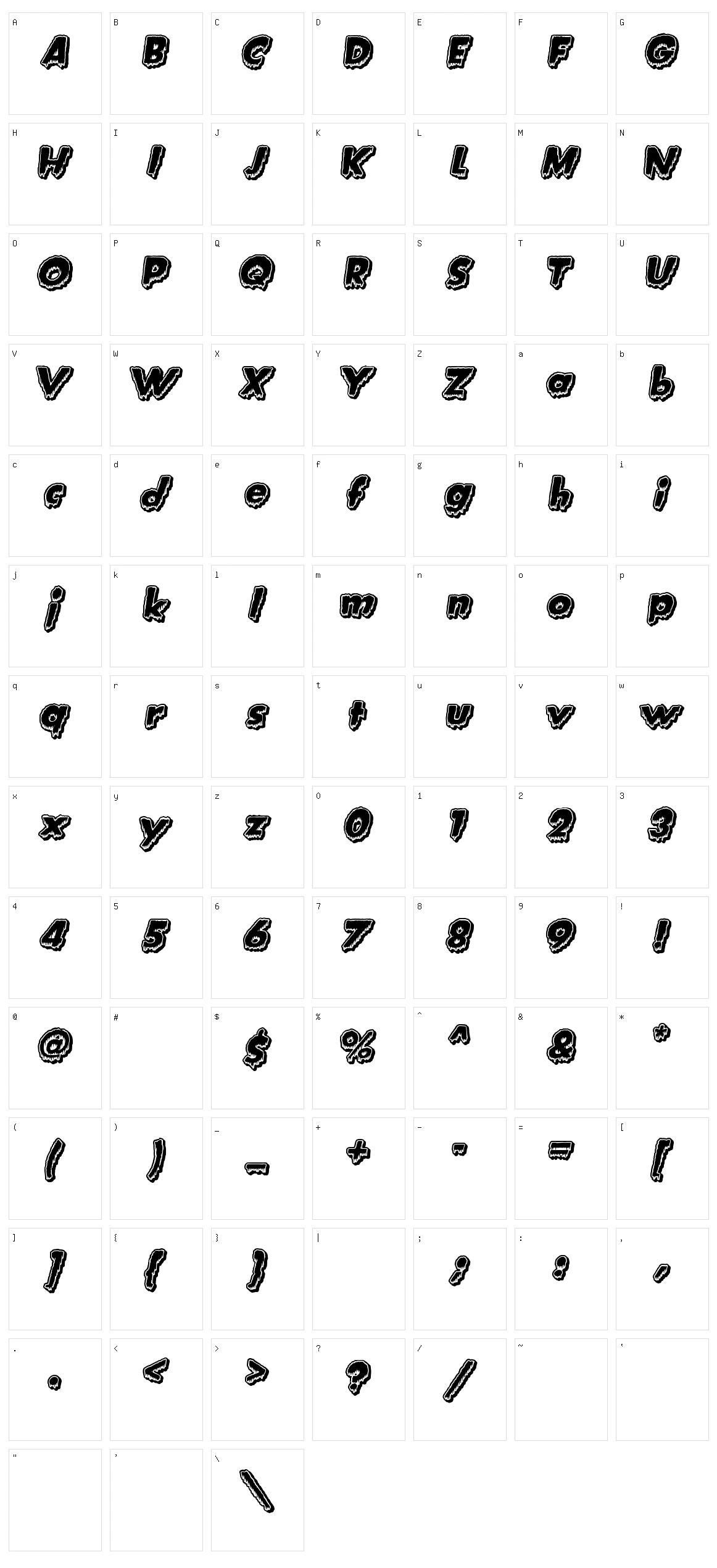
The free font Creature Feature is carefully designed by Anthony Robinson, showcasing a thoughtful balance of creativity and usability and falls under the Horror font style. When you download the ZIP file, it contains only 75.51 KB of font files, making it lightweight and quick to download. Please review the license details below to understand permitted usage and distribution rights. If license information is not available, we recommend using this font for personal projects only or contacting the author directly for commercial usage permissions.